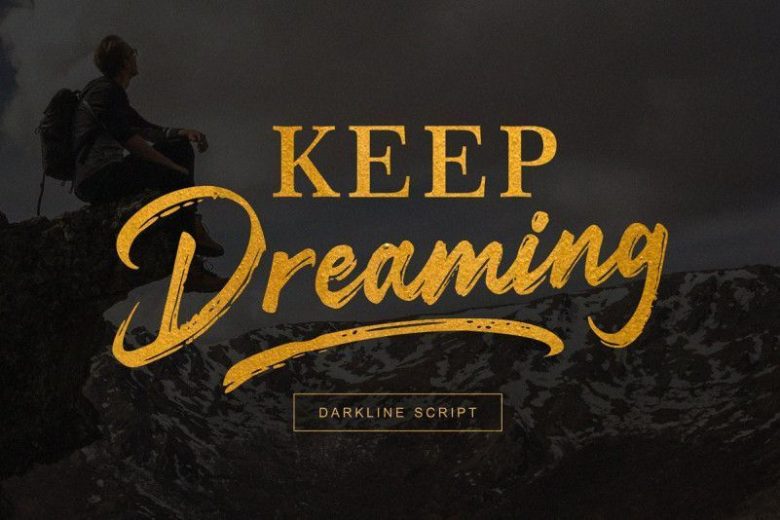
Darkline Brush Font
Darkline Brush Font – is a textured brush font with a contemporary design style. It has a charming, authentic and relaxed feeling and is perfect for adding a natural touch to your design.
Darkline Brush Script Font designed and shared by Subectype Studio. It’s a brush script font, dapper handwritten font with a personal charm. With quick dry strokes and a signature style,
Darkline is perfect for branding projects, homeware designs, product packaging – or simply as a stylish text overlay to any background image.